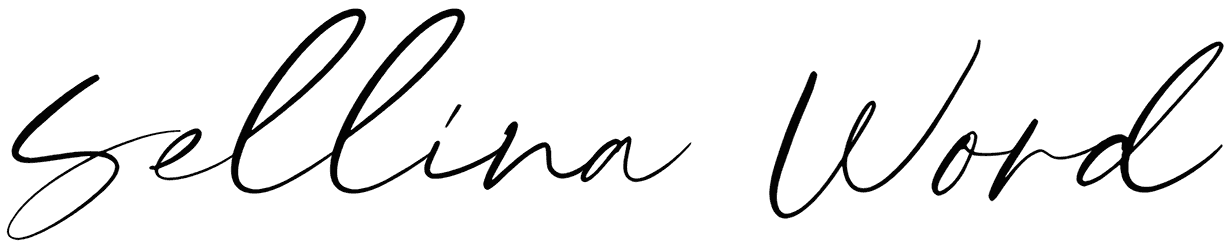
Sellina Word Font
Introducing Sellina Word, a beautiful handwritten font delicately crafted to bring a special feel to your design. It features a sweet, modern touch that elegantly shows off. You’d better pay attention to its illegibility…
Introducing Sellina Word, a beautiful handwritten font delicately crafted to bring a special feel to your design. It features a sweet, modern touch that elegantly shows off. You’d better pay attention to its illegibility before downloading. This script font is the best choice for watermarks, signatures, letters, commercials, and greeting cards.